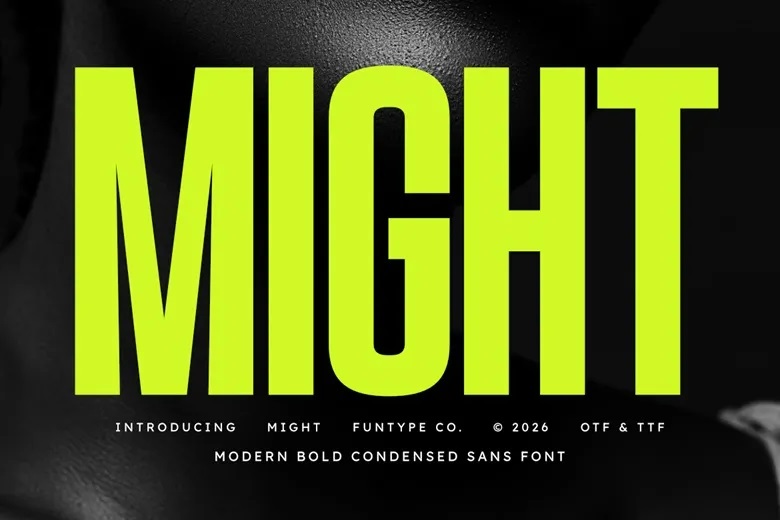
Might Font
Might is a bold, modern condensed sans serif font made for high-impact, precise typography. With its heavy build, tall letters, and clean lines with sharp angles, it works well for headlines, sports logos, industrial branding, and digital posters. Its strong, balanced design helps your visuals stand out and look professional.
Might Sans Serif Font